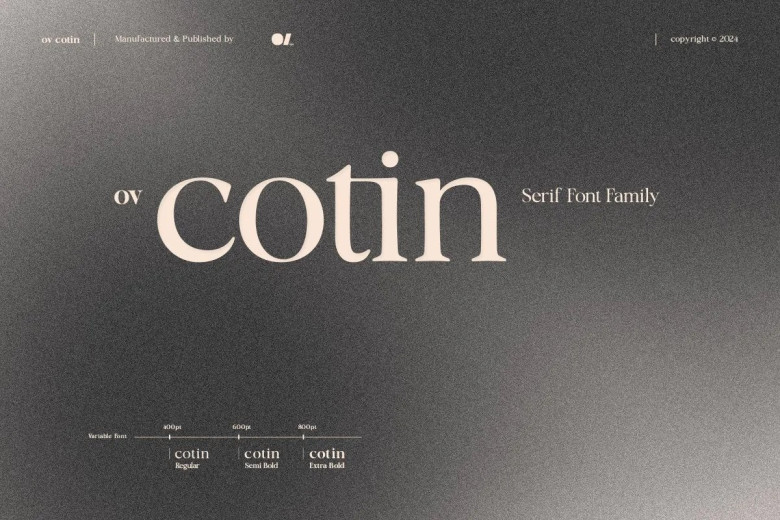
OV Cotin Font
Ov Cotin Font is an exquisite serif font with modern features. Comprising Regular, Semi Bold, and Extra Bold font families that perfectly combine modernity with nostalgia, each font was carefully designed to convey an instantly recognisable design while taking into account current fashion trends and styles.
OV Cotin adds sophistication and charm to any design, providing the ideal solution for those seeking a balance of modern and traditional aesthetics.
OV Cotin Serif Font